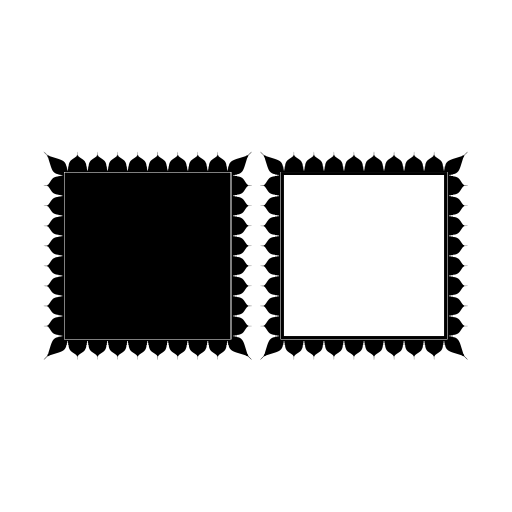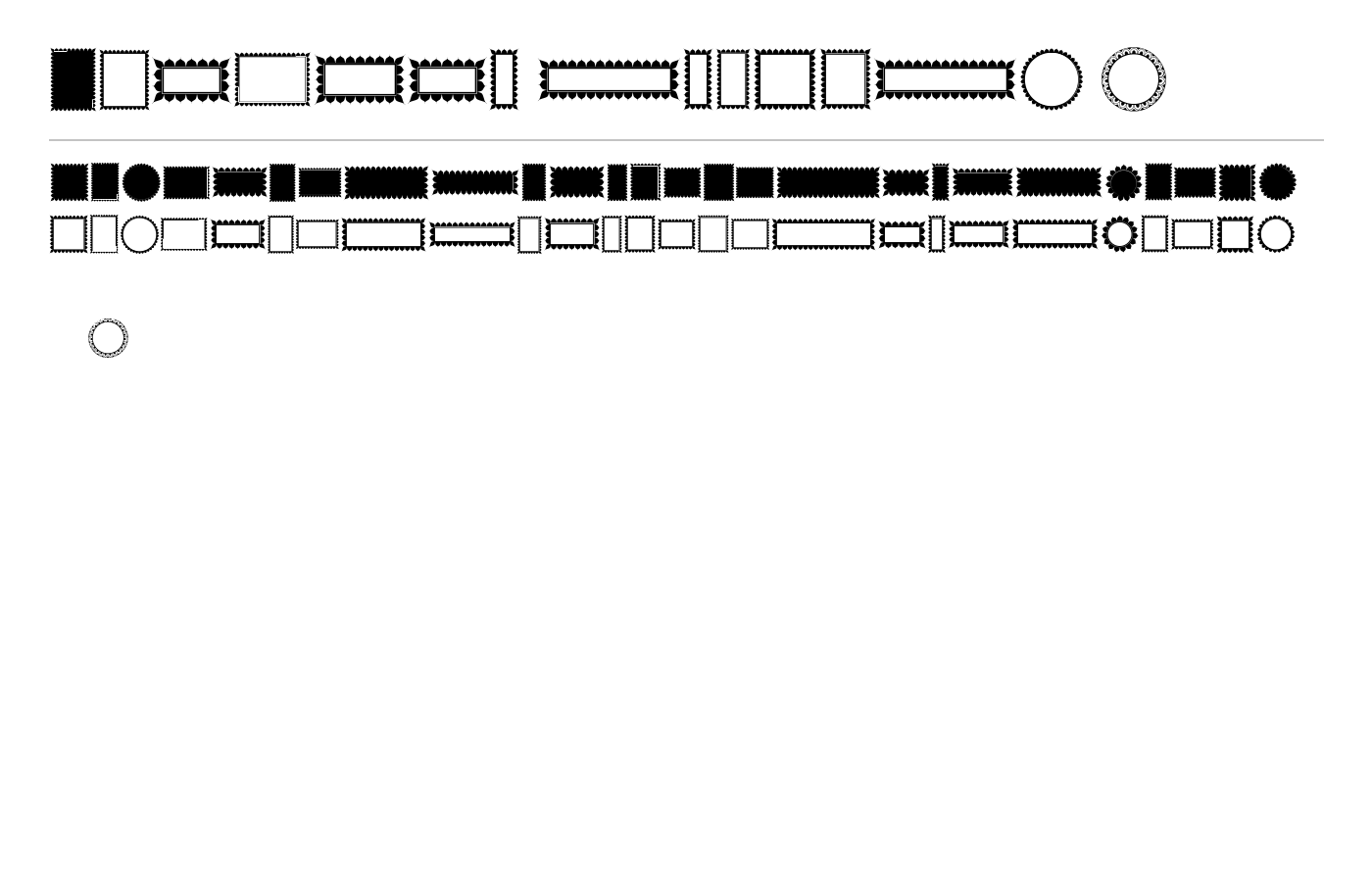
Borders Islamic 1444 is a decorative, ornamental font featuring intricate border designs inspired by Islamic art. This display typeface contains various geometric and serrated shapes that create visually striking frames and embellishments, ideal for adding an elegant, cultural touch to designs. Best suited for decorative purposes such as invitations, posters, and packaging, it conveys a sophisticated and traditional aesthetic while functioning as a unique stylistic element.
Borders islamic 1444 Font
About Borders islamic 1444 Font